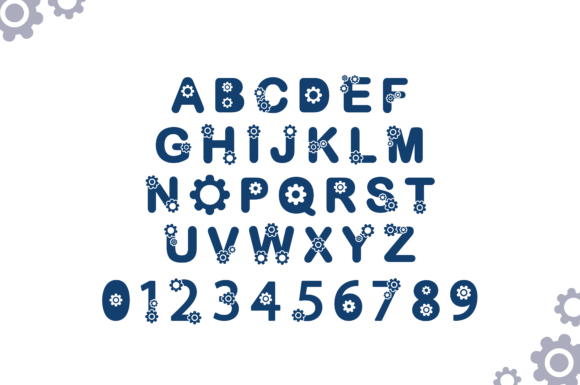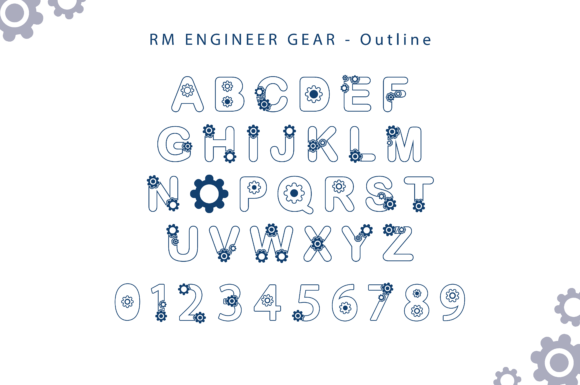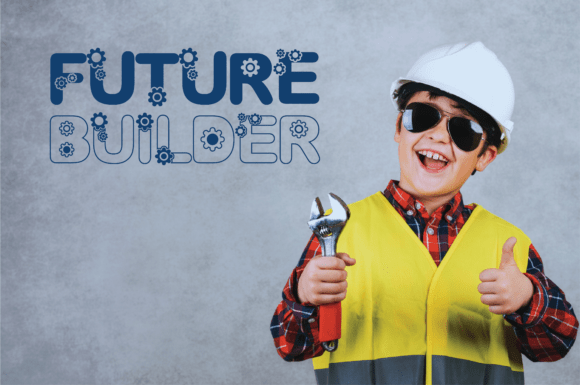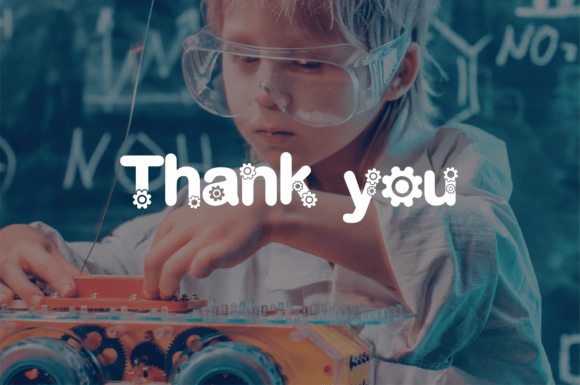
Introduction to Engineer Gear Font
Get creative with Engineer Gear, a bold and playful font inspired by mechanics, gears, and engineering concepts.
Featuring rounded, modern letters decorated with intricate gear details, this font is perfect for STEM projects, educational materials, robotics competitions, science fairs, and technology branding Whether youโre designing for a classroom, a kidsโ science club, or an innovative startup, Engineer Gear adds a fun and futuristic touch to your projects.